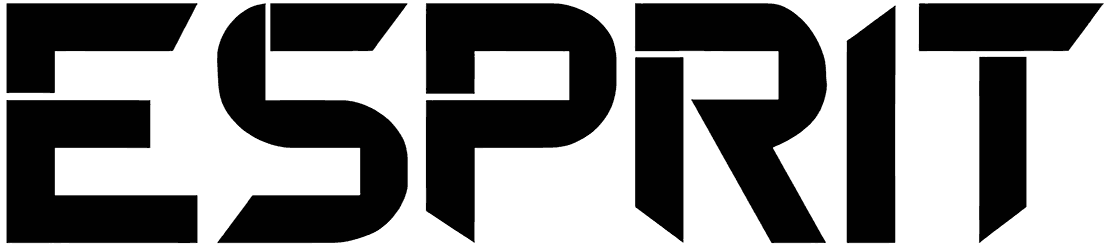
SharpCore Font
SharpCore is an incredibly versatile techno font that has a plethora of applications ranging from movie posters, video game banners, flyers, and product labels, to logos.
This all-caps masterpiece has an artistic contrast that captivates the attention of the audience and helps your graphic content stand out alongside hundreds of other high-end counterparts. Last but not least, its characters carry a sense of professionalism, momentum, jauntiness, and tenderness.